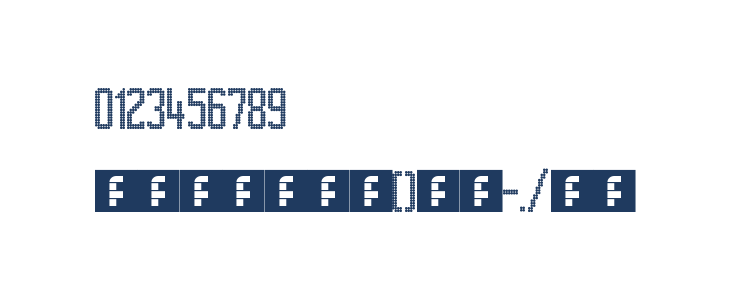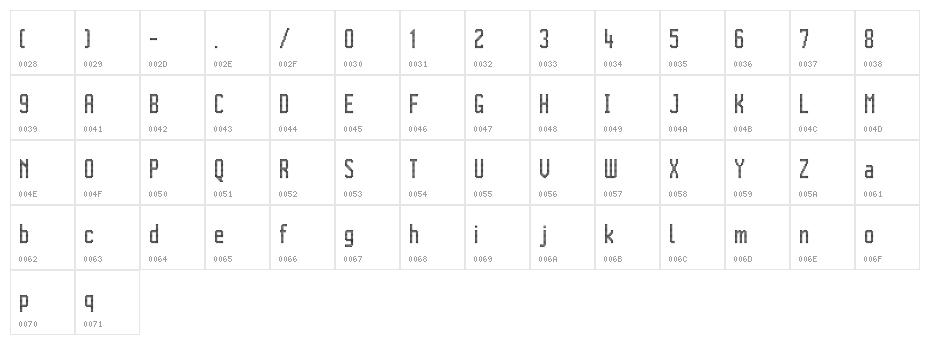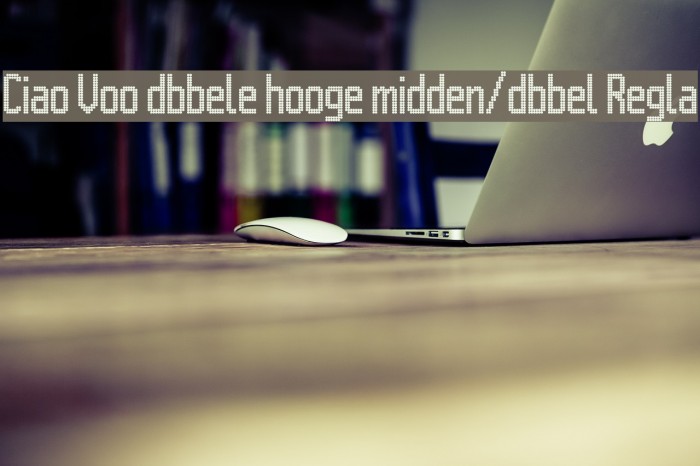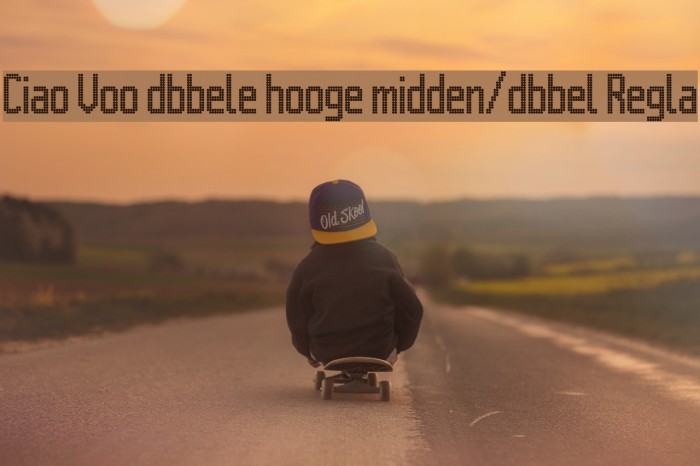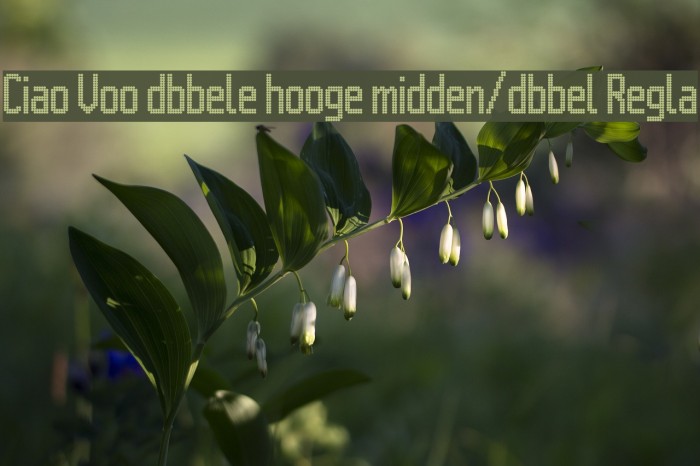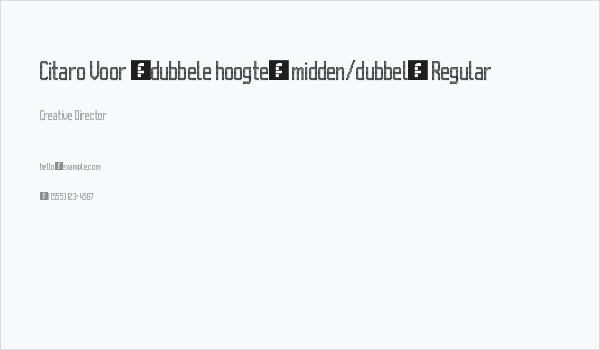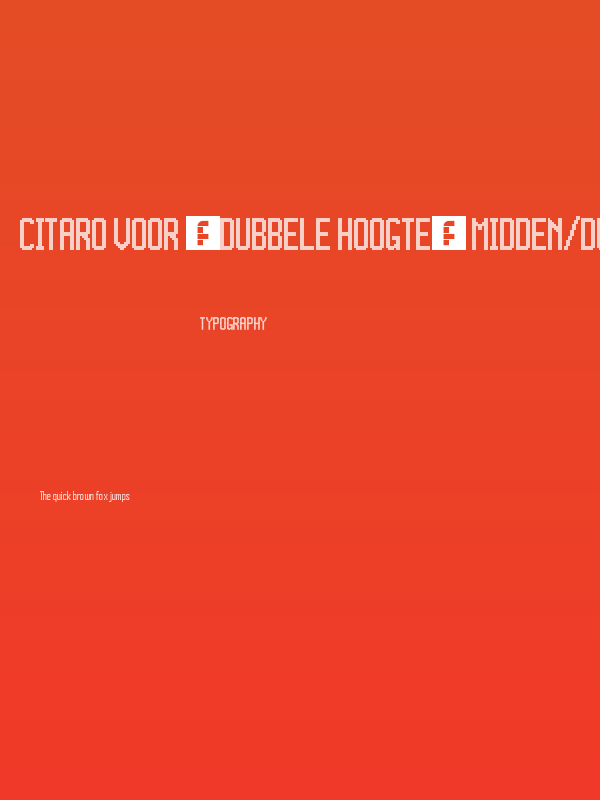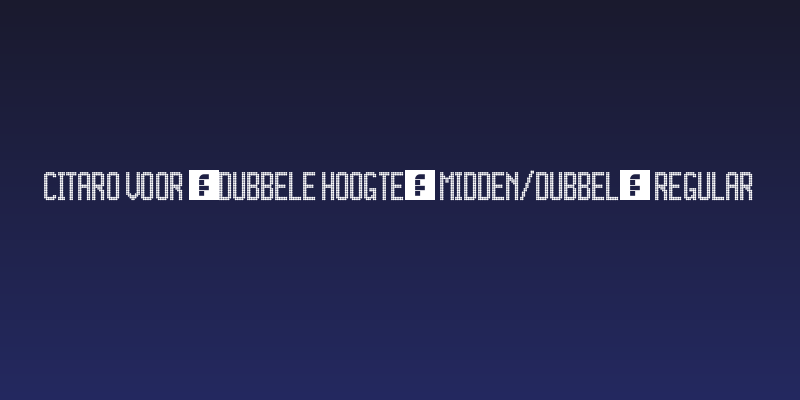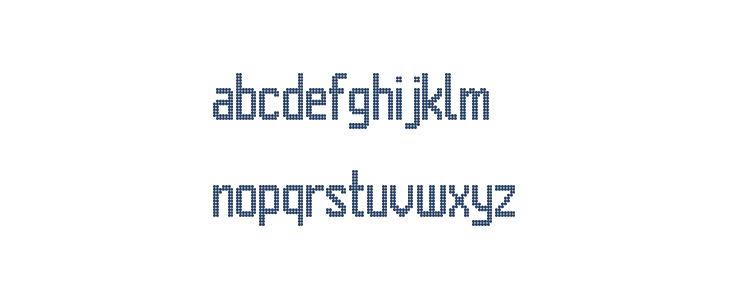
Citaro Voor [dubbele hoogte, midden/dubbel] Regular Font
Citaro Voor [dubbele hoogte, midden/dubbel] Regular Description
This font features a unique dot matrix design, reminiscent of digital displays or LED screens. Each character is composed of a grid of small, evenly spaced dots, creating a pixelated effect. The uppercase and lowercase letters maintain a consistent height, with clear distinctions between each character. Numbers and special characters follow the same dot matrix pattern, ensuring uniformity across the font. The style is highly geometric and structured, lending itself to a modern, tech-inspired aesthetic. The font's simplicity and clarity make it suitable for digital interfaces or retro-themed projects.
| Use Case | Headlines, Digital displays, Signage |
| Proposed Projects | Ideal for digital displays, retro-themed designs, tech interfaces, and signage. |